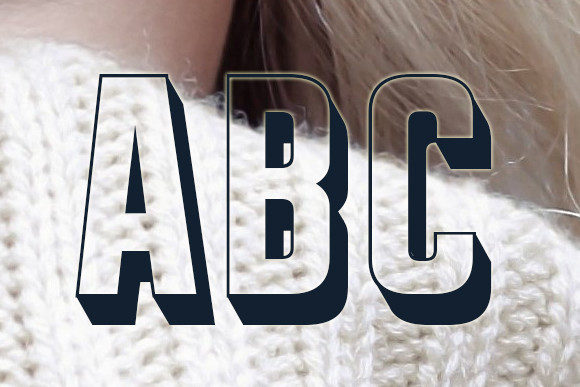
Unlock Your Creativity with the Ultimate Display Font
Have you ever been in the midst of a creative project, staring blankly at a blank canvas or screen, searching for the perfect font to bring your vision to life? It’s a frustrating feeling, but also an exciting one – the thrill of the hunt for the perfect typography to elevate your design.
Enter Extreme Font, a bold and stylish outlined display font that’s about to become your new go-to asset. Whether you’re designing a poster, creating a social media graphic, or crafting a brand identity, Extreme Font has the potential to take your creation to the next level.
This versatile font is a valuable addition to any designer’s library, offering a unique blend of style and sophistication that’s sure to impress. With Extreme Font, you’ll be able to add a touch of drama and flair to any project, making it a must-have for designers looking to push the boundaries of their creativity.
Extreme Font Key Features
- Font Family: A custom-designed sans-serif font with bold and italic variations, ideal for making a statement.
- Unique Characteristics: Features a distinctive, futuristic design with sharp edges and a bold, eye-catching style that grabs attention.
Designer Review: Extreme Font
Overall, I think Extreme Font has some great features that make it stand out, but it’s not without its limitations. ✨
- Unconventional design approach: The font’s bold, futuristic aesthetic is sure to grab attention and make a statement.
- High contrast: The font’s thick lines and bold weights create high contrast, making it perfect for use in logos, titles, and headings.
- Expressive possibilities: With its many custom-designed shapes, the font offers endless possibilities for creative expression.
- Legibility issues: In smaller sizes, the font’s bold lines and complex shapes can make it difficult to read.
- Limited language support: The font is not optimized for languages that require more nuanced and delicate typography.
- Customization challenges: While the font offers many customization options, it can be tricky to balance the many variables and achieve a cohesive look.
- ⚠️ Technical difficulties: I encountered some technical issues with the font’s rendering in certain software and operating systems.
While Extreme Font is a bold and eye-catching choice, its limitations may make it difficult to use in certain situations. As a designer, I appreciate the font’s creative possibilities, but I would recommend it for use in specific contexts, such as logos, titles, and headings, where its bold aesthetic can shine.
Tips for Getting the Most Out of Extreme Font
Extreme Font is best used for titles, headings, and emphasis. It’s a bold and eye-catching font that can add visual interest to your design. Use it sparingly to create a dramatic effect. You can also experiment with different font sizes and combinations to create a unique look.
Extreme Font is perfect for:
- Creating attention-grabbing headlines
- Designing bold and eye-catching posters
- Adding a touch of drama to presentations and documents
Alternatives to “Extreme Font” for Designers
1. Arial Black
Arial Black is a sans-serif font known for its bold and dramatic appearance. It’s often used in titles and headings to add emphasis and create visual hierarchy. When to use: For bold and eye-catching titles, especially in digital interfaces and advertising materials. Compared to Extreme Font: While both fonts are bold, Arial Black is more versatile and can be used in a wider range of contexts, whereas Extreme Font is more suited for specific design niches.